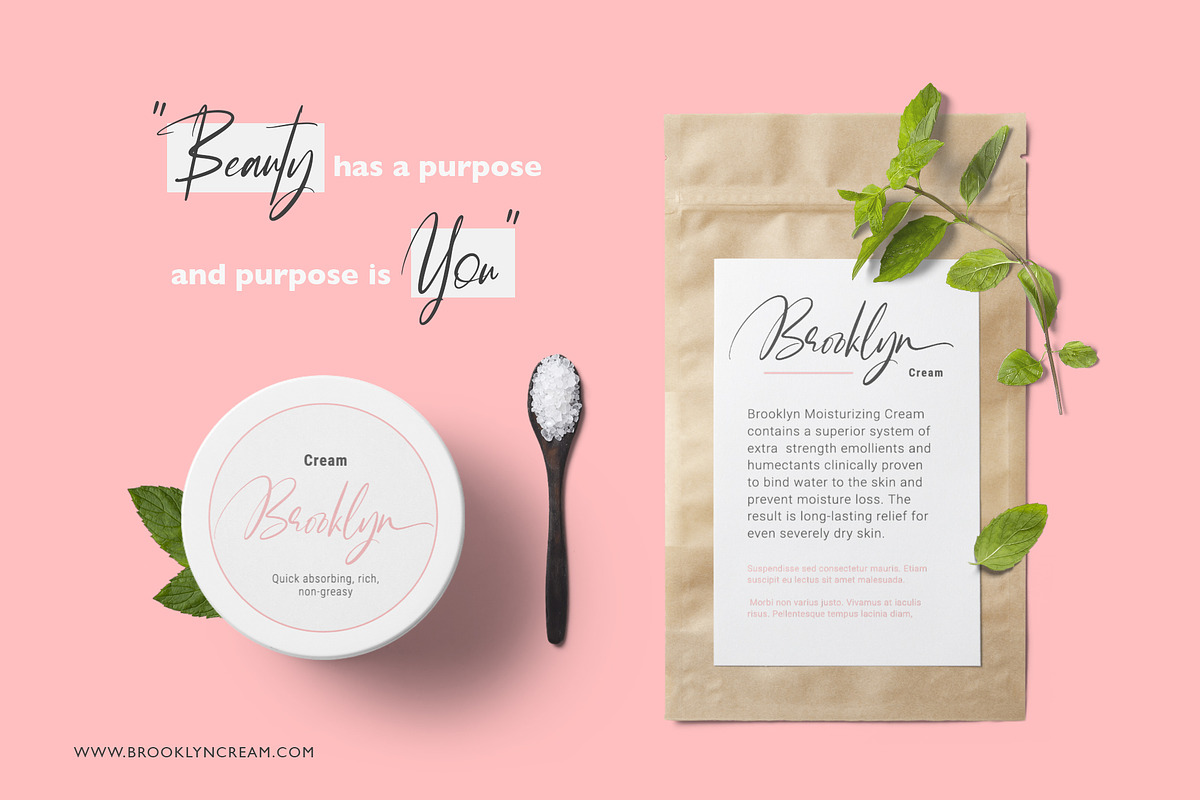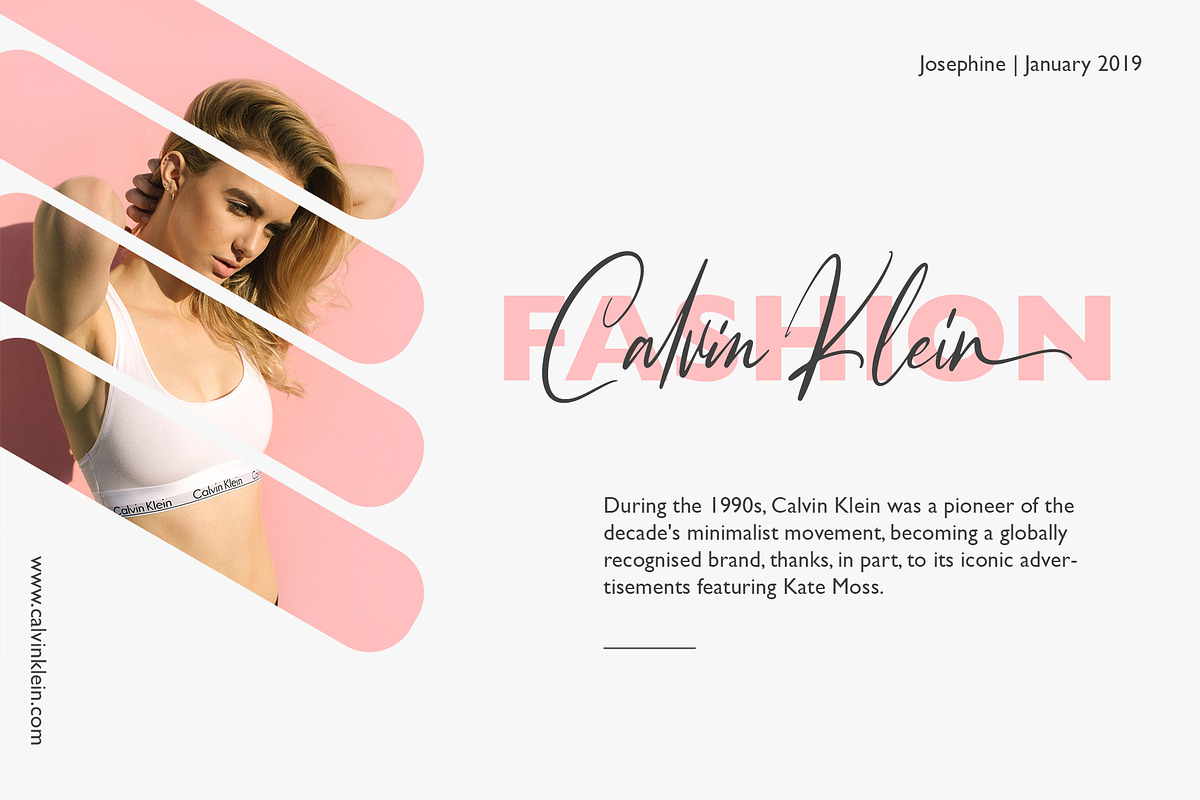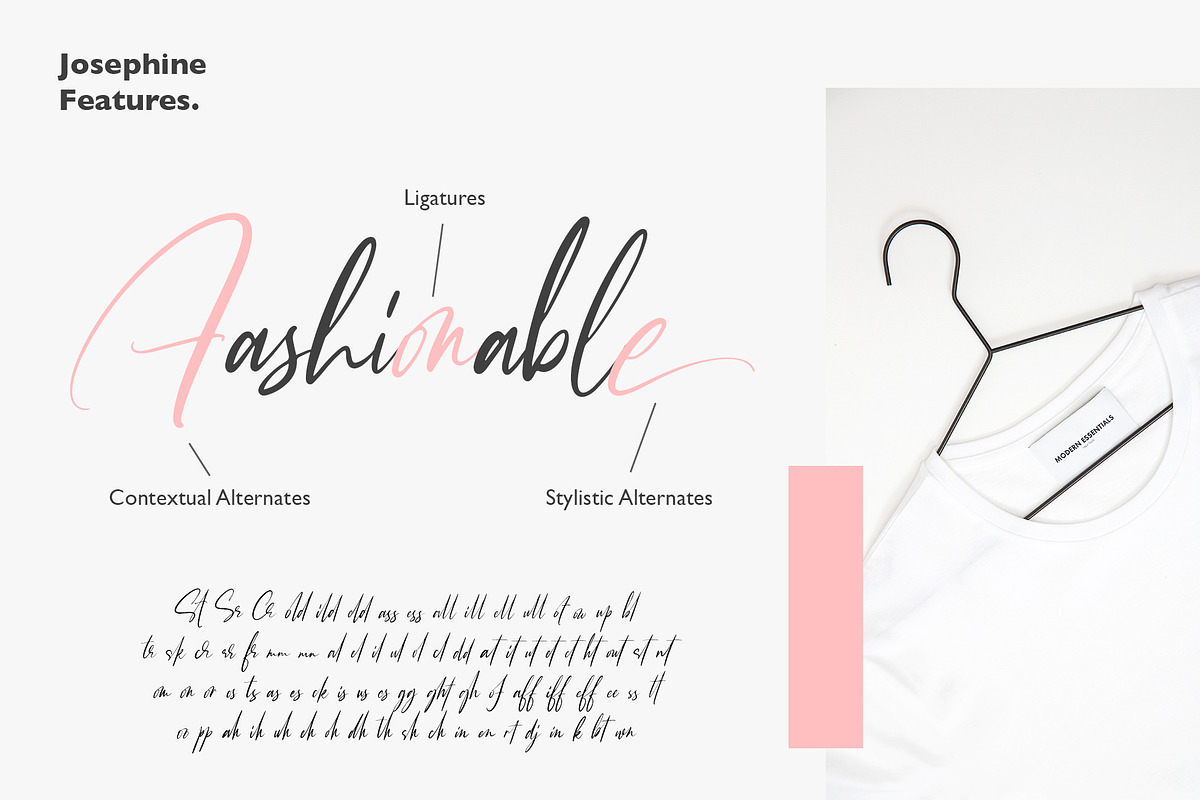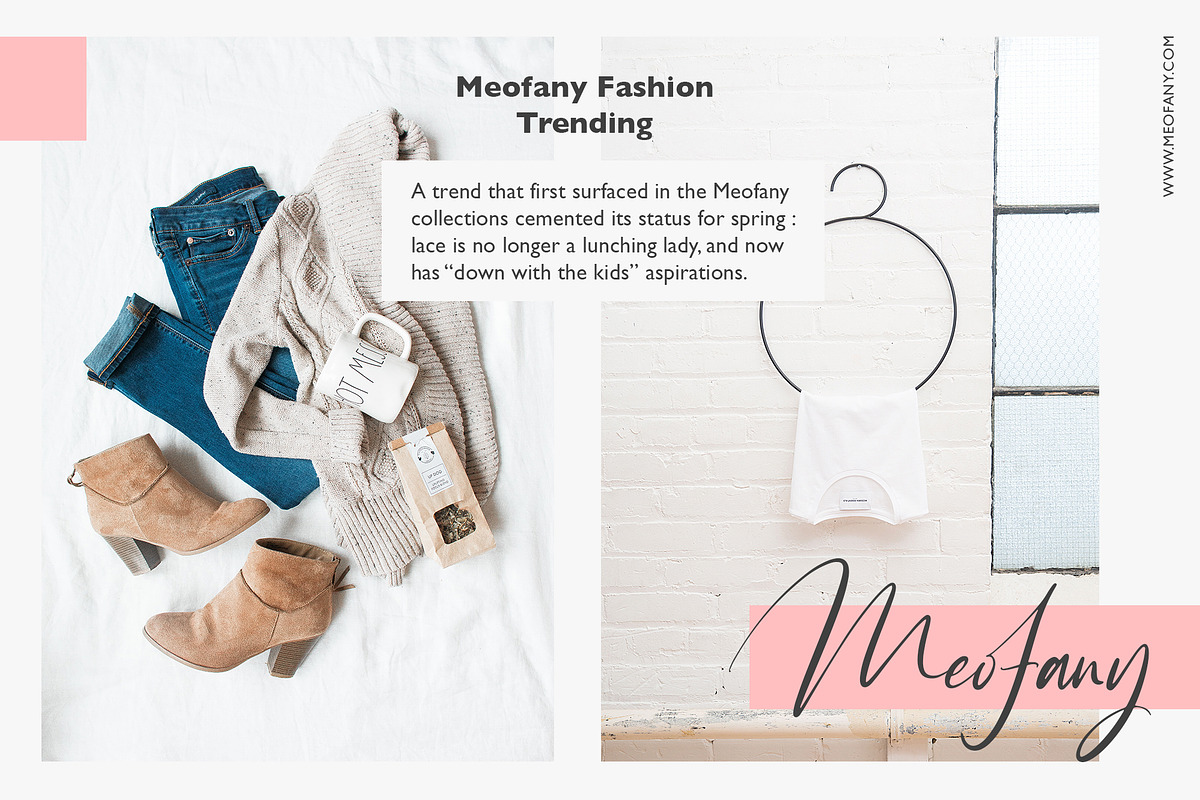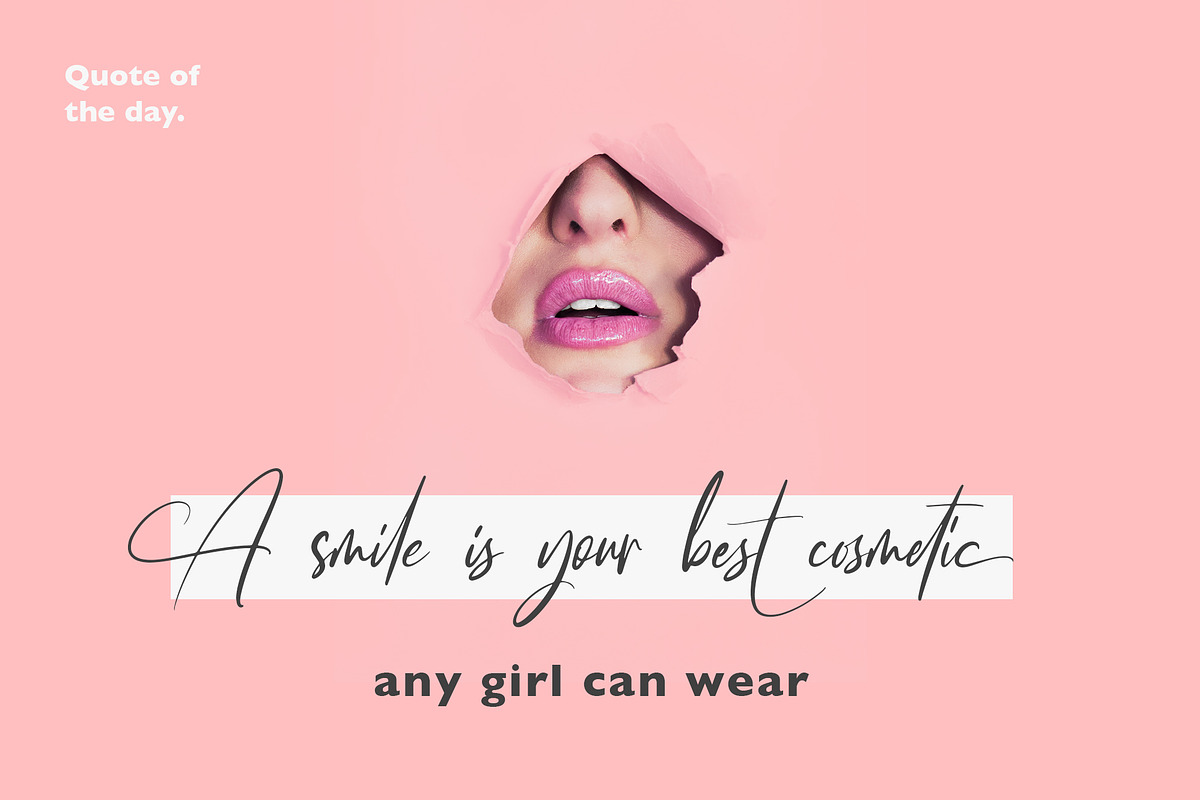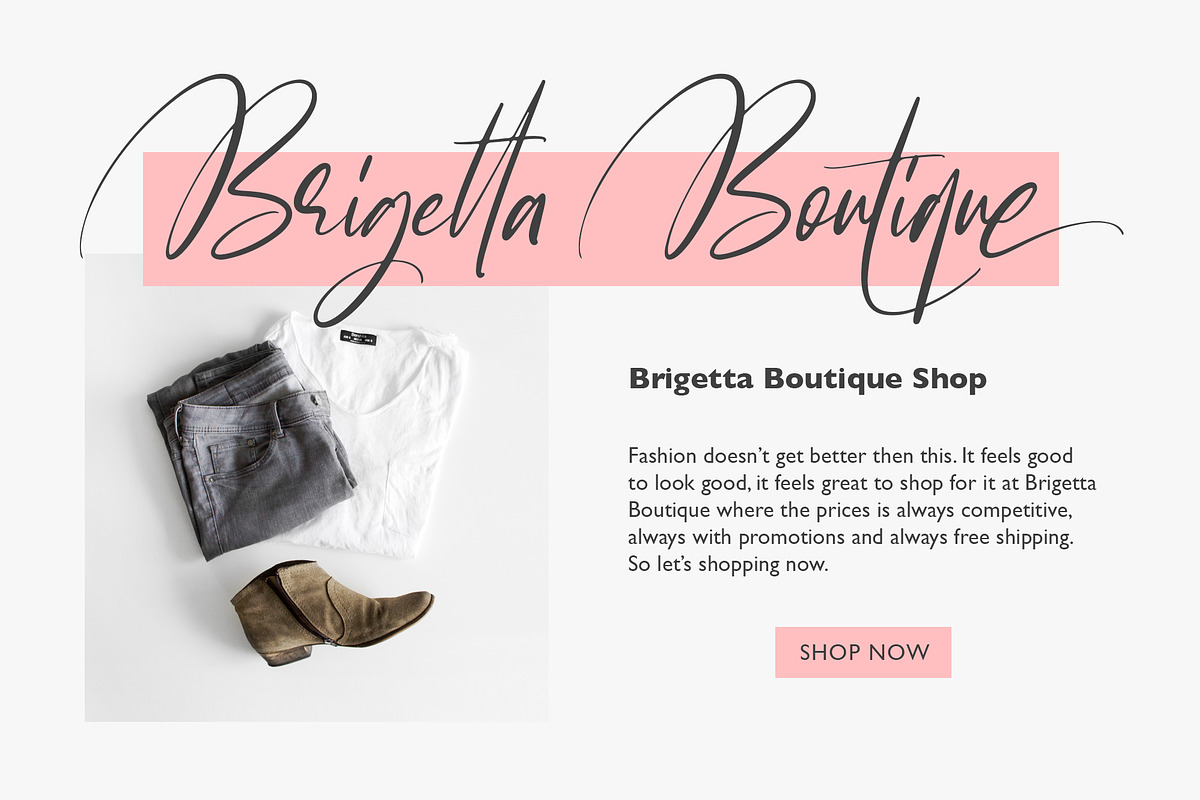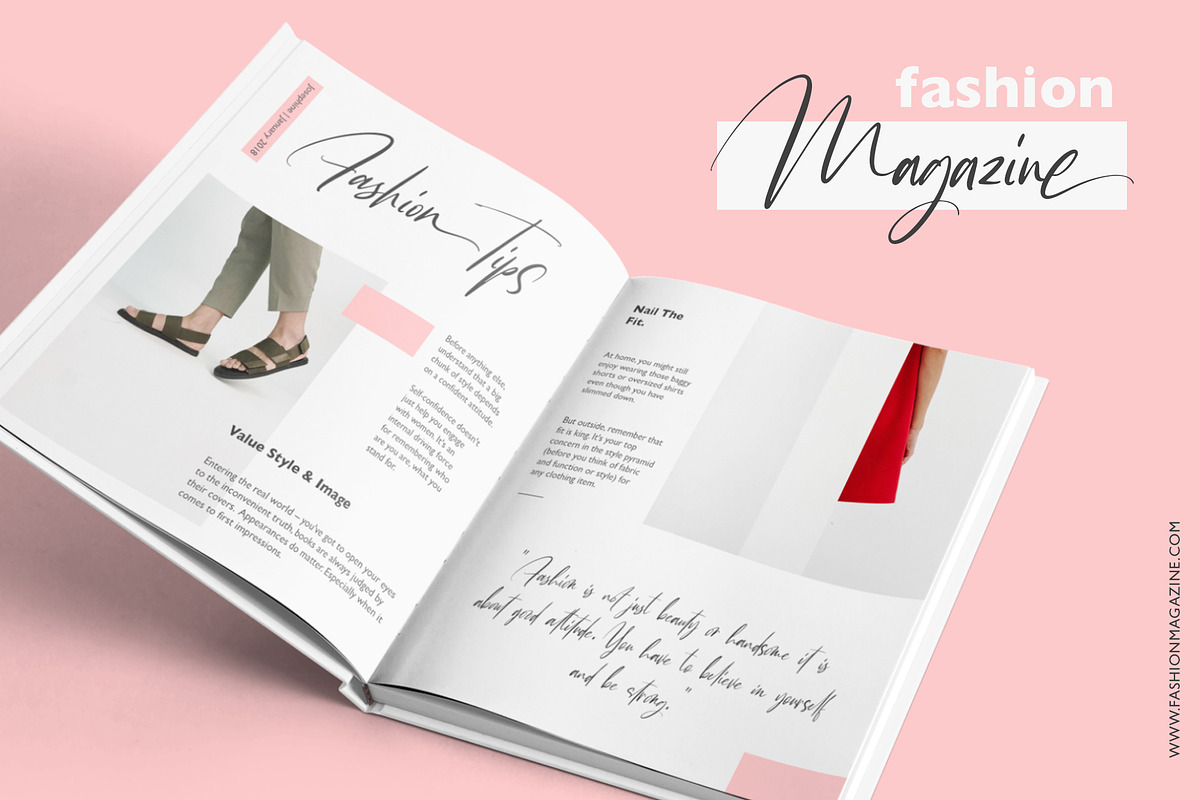
Josephine | Fashionable Script Font
Introducing Josephine - A Fashionable Modern Script Font
Josephine is a modern script typeface that every single letter contains beautiful characters alternates and feature ligatures. This font come with 70+ Ligatures, Contextual alternates, and Stylistic alternates. This font is stylish, fresh and ideal for adding the special look to your designs.
Josephine font that is special for fashion and matches applies in some designs such as the logotype, brand, magazine, website or blog headlines, packaging, branding, quotes, invitation cards, greeting cards, business cards, and wedding more.
70+ Ligatures, Contextual alternates, and Stylistic alternates
Multilingual support for English, French, Italian, Spanish, Portuguese, German, Swedish, Norwegian, Danish, Dutch, Finnish, Indonesian, Malay, Hungarian, Polish, Croatian, Turkish, Romanian, Czech, Latvian, Lithuanian, Slovak, Slovenian